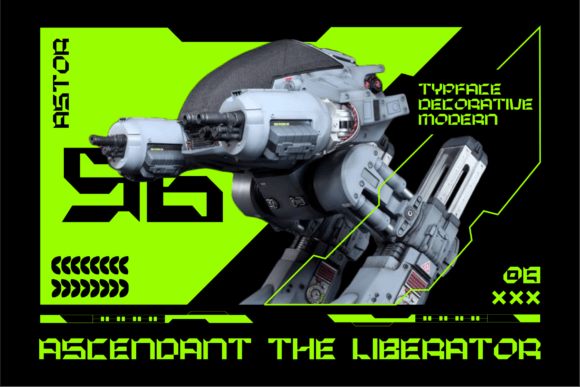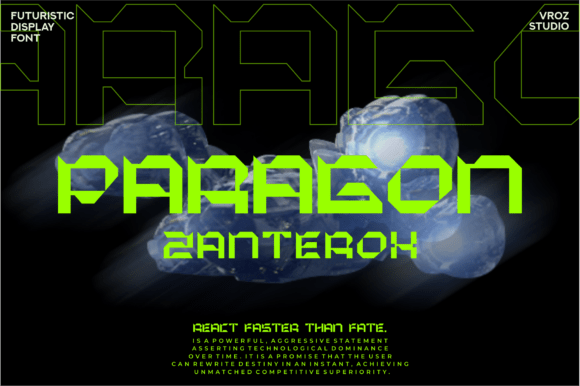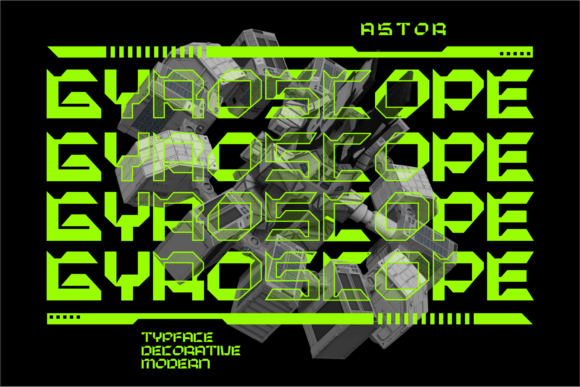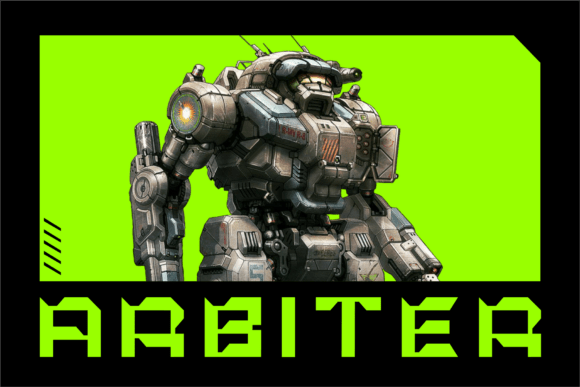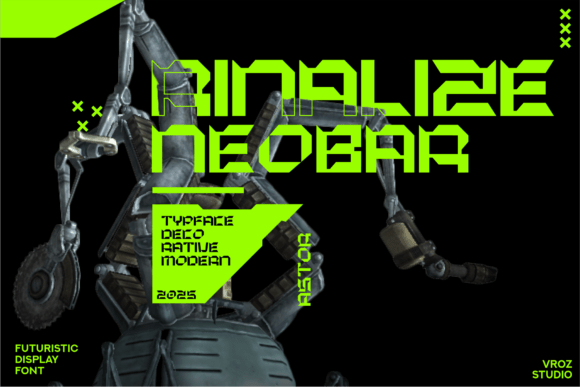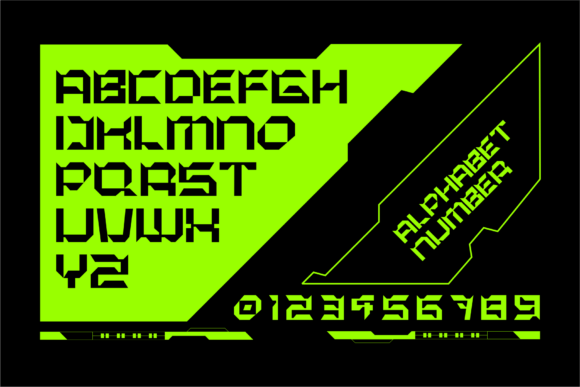
Introducing Astor Font: The Ultimate Futuristic Display Font
Enter a world of high-tech grit with Astor, an uncompromising futuristic display font that embodies the essence of modern technology and innovation. Defined by its extreme geometric construction and deconstructed, architectural style, Astor is the perfect choice for designers and crafters looking to add a touch of futurism to their projects.
Uncompromising Geometric Construction
Astor’s design is characterized by sharp, deliberate angular cuts and a system of integrated horizontal lines that slice through the letters, giving it a technical, schematic aesthetic. This bold, blocky form creates an immense visual presence, making it perfect for digital screens and large format applications. The font’s geometric construction is reminiscent of technical drawings and schematics, evoking a sense of precision and accuracy.
The Quintessential Font for Sci-Fi and Cyber-Punk Projects
Astor is the quintessential font for sci-fi branding, video game interfaces (UI/HUD), dark electronic music promotion, industrial design, and cyber-punk themed projects. Its powerful, grid-based appearance makes it highly suitable for technical manuals and futuristic motion graphics. Whether you’re designing a logo for a sci-fi movie or creating a user interface for a futuristic video game, Astor is the perfect choice.
Conveying Advanced Technology and Modernity
Use Astor to convey an atmosphere of advanced technology, military precision, and uncompromising modernity. The font’s futuristic design is perfect for brands and projects that want to evoke a sense of innovation and cutting-edge technology. From tech startups to industrial design firms, Astor is the perfect choice for any project that requires a bold, futuristic aesthetic.
Key Features of Astor Font
- Extreme geometric construction: Astor’s design is characterized by sharp, deliberate angular cuts and a system of integrated horizontal lines.
- Deconstructed, architectural style: The font’s bold, blocky form creates an immense visual presence, perfect for digital screens and large format applications.
- Technical, schematic aesthetic: Astor’s design is reminiscent of technical drawings and schematics, evoking a sense of precision and accuracy.
- Perfect for sci-fi and cyber-punk projects: Astor is the quintessential font for sci-fi branding, video game interfaces (UI/HUD), dark electronic music promotion, industrial design, and cyber-punk themed projects.
Design and Crafting Applications
Astor is perfect for a variety of design and crafting applications, including:
- Graphic design: Use Astor to create bold, futuristic logos and branding materials.
- Video game design: Astor is perfect for creating user interfaces (UI/HUD) and other futuristic design elements.
- Industrial design: Use Astor to create technical manuals and other design materials that require a bold, futuristic aesthetic.
- Music promotion: Astor is perfect for promoting dark electronic music and other genres that require a bold, futuristic aesthetic.
In conclusion, Astor is a unique and powerful font that is perfect for designers and crafters looking to add a touch of futurism to their projects. With its extreme geometric construction, deconstructed architectural style, and technical, schematic aesthetic, Astor is the quintessential font for sci-fi and cyber-punk projects. Use Astor to convey an atmosphere of advanced technology, military precision, and uncompromising modernity.